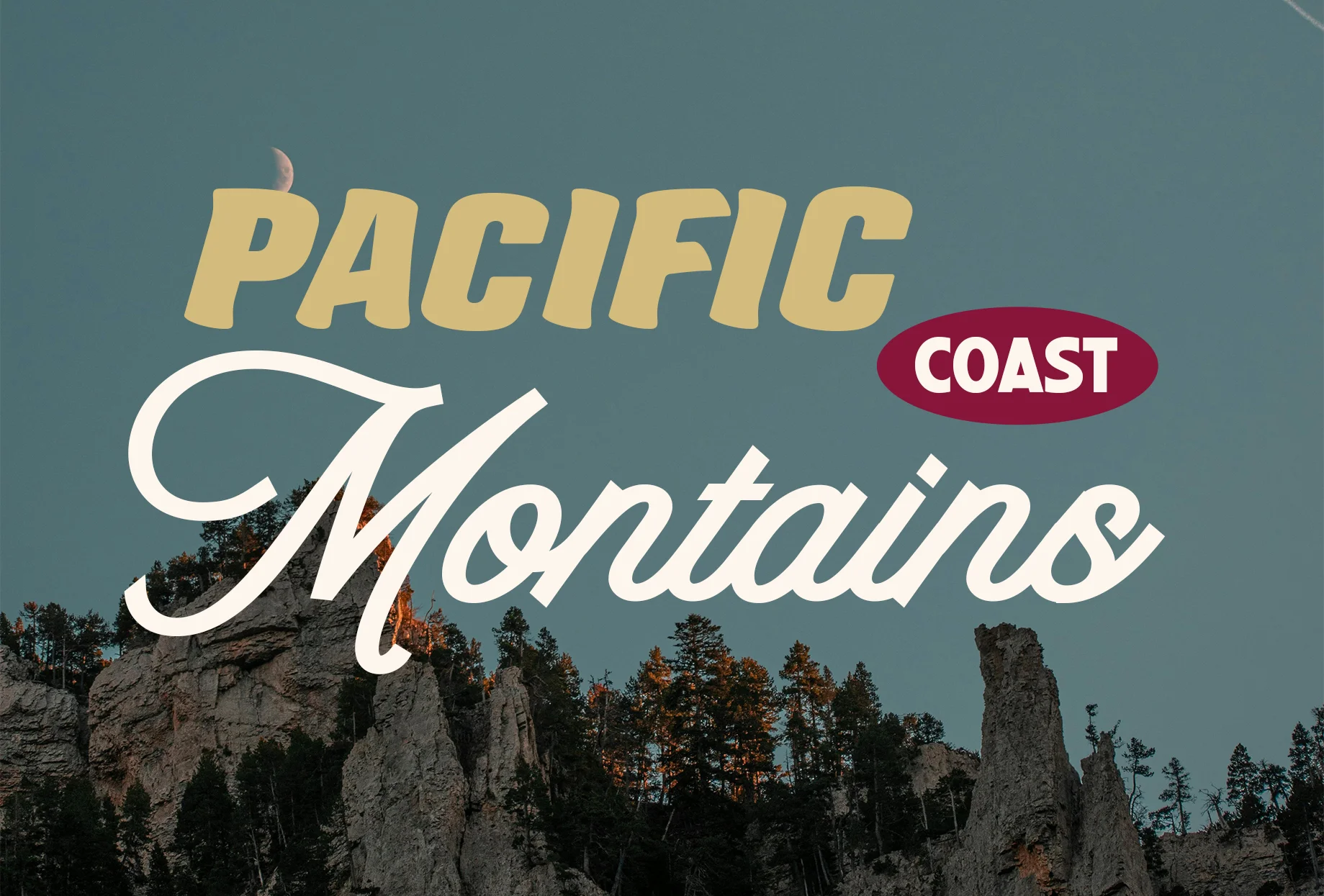
Originally Vintage
Originally Vintage Font is the perfect combination of sans serif and script font. Originally Vintage Font features elegant sans and flowing script to make your brand or design project stand out!
Originally Vintage Font is a perfect choice for any creative endeavor, elegant lifestyle designs such as logos, advertisements, photography watermarks, stationery, branding projects, displays and magazines, invitations, corporate branding, product designs, labels, business projects and many other projects with a modern vintage and elegant touch.